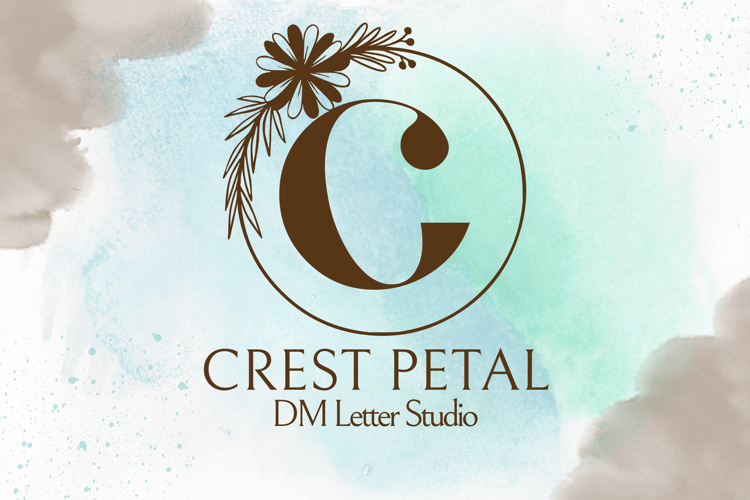
Crest Petal Monogram - Floral Crest Serif Monogram Font
Crest Petal Monogram
Crest Petal Monogram – Floral Crest Serif Monogram Font
Crest Petal Monogram is a romantic and ornate serif font designed to mimic the charm of classic monogram crests with a floral twist. Each uppercase letter is gracefully adorned with petal-like botanical elements, creating a refined and timeless look. Ideal for wedding stationery, luxury branding, custom signage, and heirloom-quality gifts, this font elevates monograms into elegant statements of style.
• Botanical Crest Design: Each letter includes decorative floral flourishes reminiscent of regal monogram crests.
• Elegant Serif Base: A stately serif structure ensures balance, readability, and timeless appeal.
• Perfect for Customization: Created for initials, wedding crests, boutique logos, and upscale branding.
• Ideal For: Wedding logos, custom gifts, nameplates, event signage, floral branding, and stationery suites.